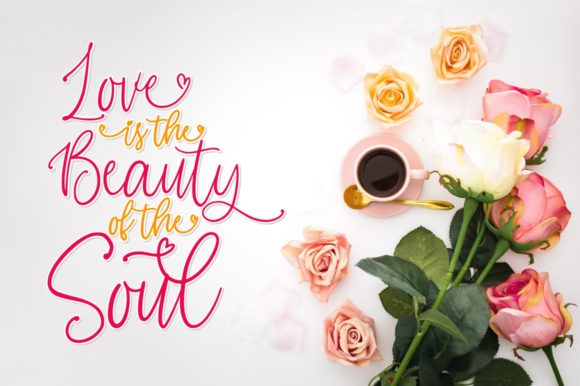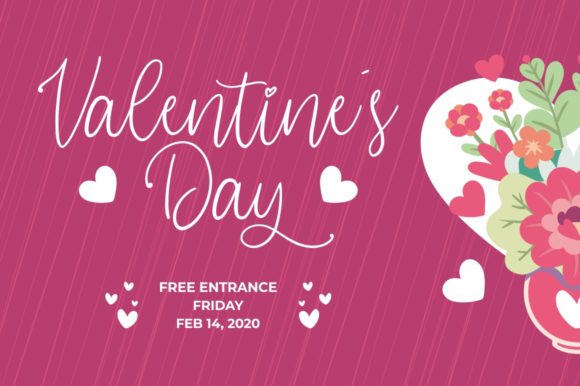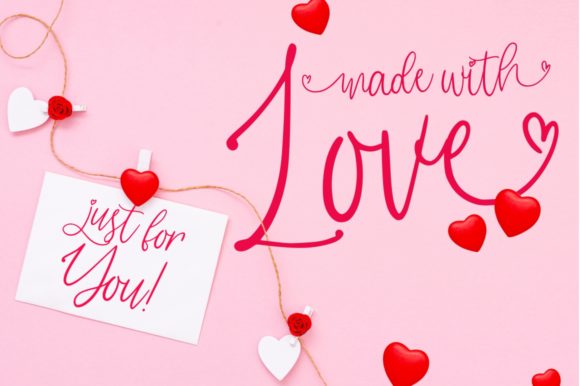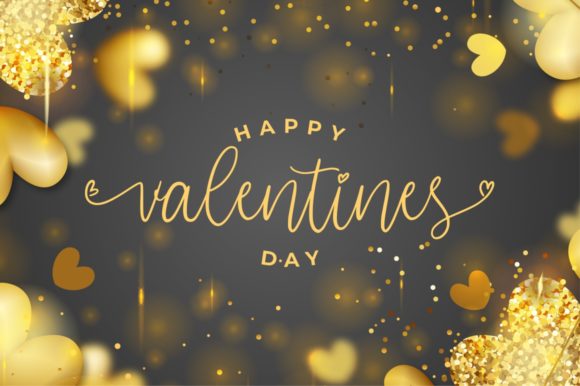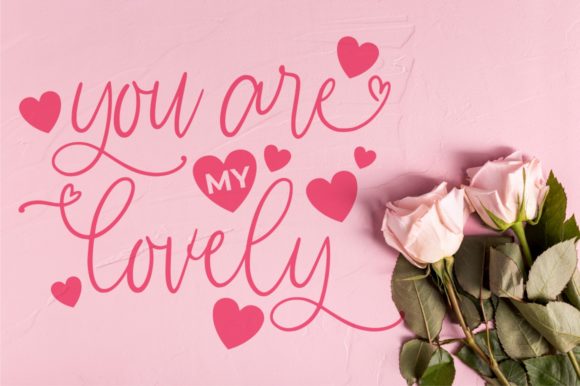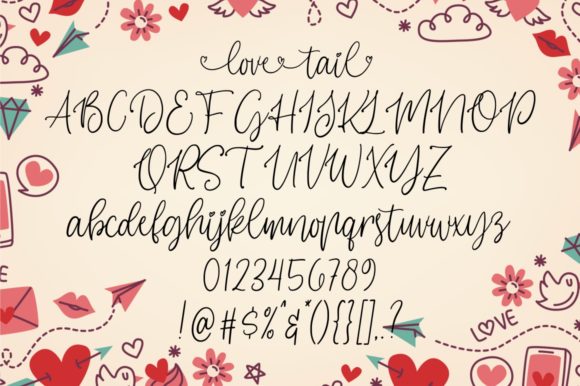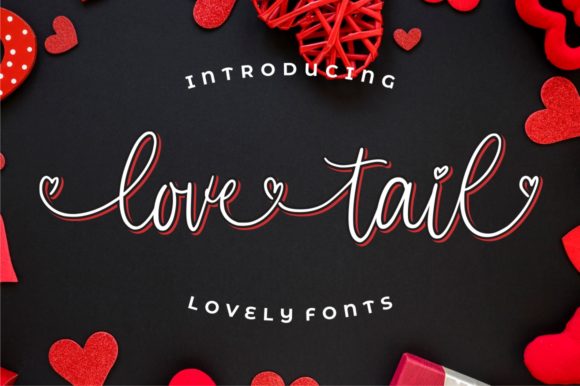
HomeScript FontsLove Tail Font Script Fonts Love Tail Font FacebookXPinterestWhatsApp Love Tail Font Poster 2 Love Tail Font Poster 3 Love Tail Font Poster 4 Love Tail Font Poster 5 Love Tail Font Poster 6 Love Tail Font Poster 7 Love Tail Font Poster 8 About Love Tail Font Love Tail is lovely script font with a unique style. It will add a romantic touch to any crafting project! DOWNLOAD ON CREATIVE FABRICAThis font is sold and delivered by Creative Fabrica. Font Canyon may earn a commission if you buy through this link. People also explored Halena Jordan Font August Font Clacker Jax Font Autumn in My Heart Font Happy Gifts Font Dellatyna Font Tropical Flamingo Font Beruntung Font Amocelia Font 325 0 TagsLove Tail Font Previous articleThe Secret Love FontNext articleLoving Hollydate Font LEAVE A REPLY Cancel reply Comment: Please enter your comment! Name:* Please enter your name here Email:* You have entered an incorrect email address! Please enter your email address here Website: Save my name, email, and website in this browser for the next time I comment. Personal Use Free Leadent Script Personal Use Free Read more about this font Anggraini Personal Use Free Read more about this font Quentin Personal Use Free Read more about this font Dolce Vita Personal Use Free Read more about this font BLOG Modern Sans-Serif Fonts That Brands Love in 2025 In 2025, modern sans-serif fonts remain a top choice for brands looking to project clarity, professionalism, and... Fonts That Capture the Spirit of New York City The 10 Best Handwriting Fonts to Add Personality to Your Designs Transform Your Website: Elevate Your Typography with 7 Best Web Font Generators